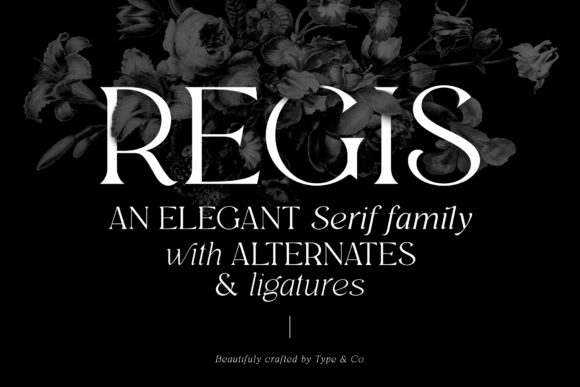
Behold the exquisite Regis Font, a masterpiece of typography that embodies the essence of minimalism. Crafted by the renowned Type and Co., Regis exudes an air of timeless elegance and modern sophistication.
Regis belongs to the esteemed serif font family, characterized by its graceful curves and delicate strokes. Each letterform is a testament to the artistry and attention to detail that went into its creation. With Regis, you'll elevate your designs to new heights, imbuing them with an aura of classicism and refinement.
Unleash your creativity with Regis, the perfect font for those who seek to make a statement without resorting to the mundane. Its clean lines and subtle flourishes add a touch of understated luxury to any project. Whether you're crafting stunning logos, captivating headlines, or elegant invitations, Regis will effortlessly elevate your creations.
But Regis is more than just a pretty face. Its versatility extends far beyond the realm of aesthetics. This font is meticulously designed to complement a wide range of design styles, from minimalist masterpieces to bold and contemporary concepts. With Regis at your disposal, you can seamlessly adapt your designs to suit any occasion or audience.
And let's not forget about functionality. Regis is PUA encoded, granting you effortless access to a treasure trove of glyphs and swashes. This means you can effortlessly add intricate details and embellishments to your designs, unlocking a world of creative possibilities.
So, why settle for ordinary when you can embrace the extraordinary? With Regis Font, you'll not only enhance your designs but also captivate your audience with its timeless charm and undeniable allure.